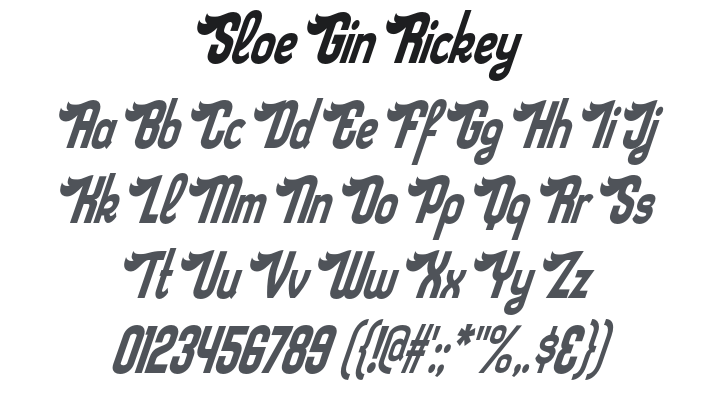
Sloe Gin Rickey Font
About Sloe Gin Rickey
Sloe Gin Rickey is a sleek, wing-shaped industrial script typeface inspired by mid-20th century automotive logo designs — its bold, swooping italic letterforms carry the speed-line energy of classic Harley Davidson, Bendix, and Raybestos logos, where wing motifs symbolized velocity and mechanical power. Every character feels aerodynamic and forward-thrusting. Perfect for motorcycle branding, vintage automotive designs, rockabilly aesthetics, retro speed shop graphics, and any headline needing classic American industrial cool.